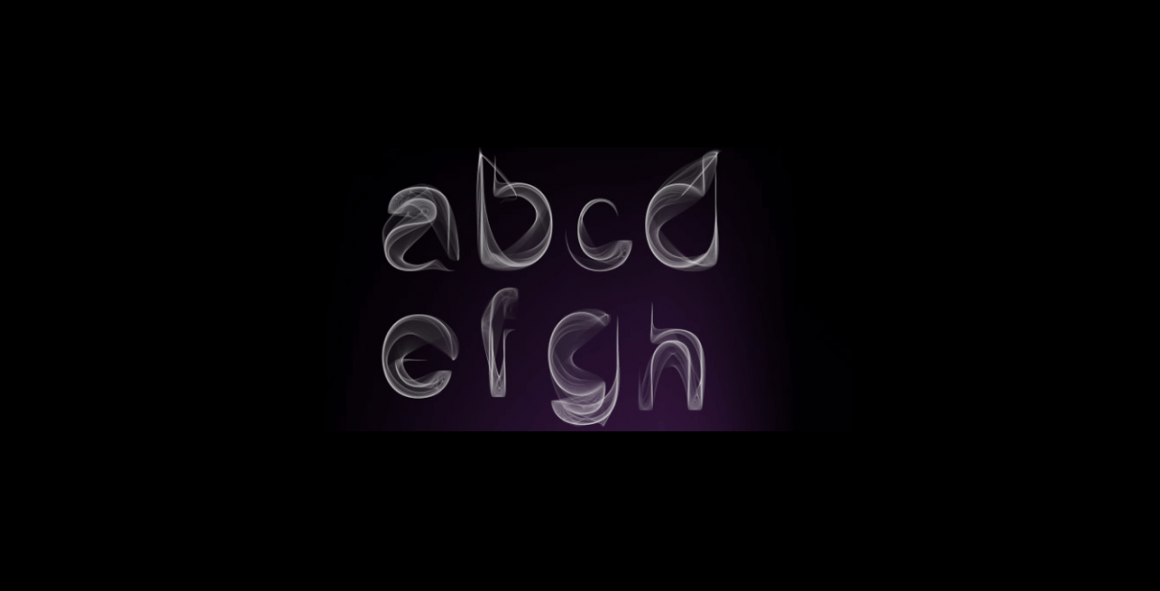
Smoke fonts are typefaces designed to emulate the wispy, diffuse appearance of smoke. They create atmospheric, eerie, or ethereal text effects, often used in horror, fantasy, and mystical themed designs. Graphic designers, digital artists, and marketing professionals benefit from smoke fonts to enhance visual storytelling and create unique text visuals.
What Makes a Smoke Font Unique?
Understanding the Appeal of Smoke Fonts
Smoke fonts capture the essence of wispy, ephemeral smoke, bringing a sense of mystery and fluidity to text. Their appeal lies in their ability to evoke a specific atmosphere, making them a popular choice for designs that require an element of intrigue or drama. The unique visual texture of smoke fonts can transform ordinary text into something eye-catching and memorable.
The Smoky Aesthetic: Textured and Mysterious
The smoky aesthetic of these fonts is characterized by their intricate, flowing lines and gradients that mimic the natural movement of smoke. This textured appearance creates a sense of depth and motion, making the text appear almost alive.
The mysterious vibe of smoke fonts is perfect for projects related to magic, fantasy, or even horror themes, where an air of enigma and sophistication is desired.
How Smoke Fonts Stand Out in Design Projects
Smoke fonts stand out in design projects due to their distinct and unconventional appearance. They can be used to add a dramatic flair to posters, book covers, event invitations, and more.
When used sparingly and thoughtfully, smoke fonts can highlight key elements of a design without overwhelming the viewer. Their versatility allows them to complement a wide range of visual styles, from dark and moody to elegant and refined.
Incorporating smoke fonts into your design toolkit can provide a unique edge, helping your projects stand out in a crowded visual landscape. Whether you’re aiming to create a sense of mystery or simply want to add a touch of artistic flair, smoke fonts offer a compelling and versatile option for designers.
Top Picks for the Best Smoke Fonts of 2024
Reviewing the Leading Smoke Fonts
In 2024, the design world has seen a surge in creative and visually captivating smoke fonts. These fonts are not only trendy but also versatile, perfect for various design projects. Some of the leading smoke fonts this year include:
• Smoke Trail – Known for its intricate and realistic smoke effects, Smoke Trail is perfect for projects that require a dramatic and eye-catching font.
• Mystic Smoke – This font combines elegance with a smoky texture, making it ideal for invitations, book covers, and posters.
• Ethereal Mist – Ethereal Mist offers a softer, more subtle smoke effect, suitable for designs that need a touch of mystery without overwhelming the viewer.
• Vapor Script – A script font that blends cursive elegance with smoky details, perfect for creative and artistic designs.
Analyzing Bold and Elegant Smoke Fonts
Bold and elegant smoke fonts make a powerful statement in any design. These fonts are designed to stand out while maintaining a sense of sophistication:
• Phantom Smoke – A bold font with thick, smoky strokes that add depth and intrigue to headlines and titles.
• Smokey Royale – Combining regal elegance with a smoky effect, this font is perfect for upscale events and luxury brand designs.
• Veil of Mist – Elegant and refined, Veil of Mist offers a delicate smoke texture that enhances the overall aesthetic without overpowering the design.
Fonts That Capture the Smoky Essence: A Detailed Look
Fonts that capture the true essence of smoke go beyond mere texture; they embody the fluidity and ephemeral nature of smoke. Here’s a detailed look at some fonts that master this smoky essence:
• Ghostly Wisps – This font mimics the natural movement of smoke, with wispy lines that create a sense of motion and depth. Ideal for projects needing a touch of the supernatural.
• Fading Ember – Fading Ember offers a unique combination of smoky texture with subtle gradients, giving the text a glowing, ember-like appearance.
• Soot & Ash – Perfect for darker, more intense designs, Soot & Ash combines heavy, smoky strokes with a gritty texture, making it ideal for horror or thriller themes.
• Mystic Veil – With its delicate and intricate smoke patterns, Mystic Veil adds a layer of mystery and elegance, suitable for fantasy-themed projects and ethereal designs.
How to Download the Best Free Smoke Fonts
Where to Find Free Smoke Fonts Online
Finding high-quality smoke fonts for free can be a rewarding endeavor for designers on a budget. Here are some reliable sources where you can find free smoke fonts:
The evolution of smoke fonts in graphic design showcases their growing complexity, versatility, and appeal. From simple beginnings to sophisticated, customizable typefaces, smoke fonts have become a vital tool for designers seeking to add depth, drama, and elegance to their work.